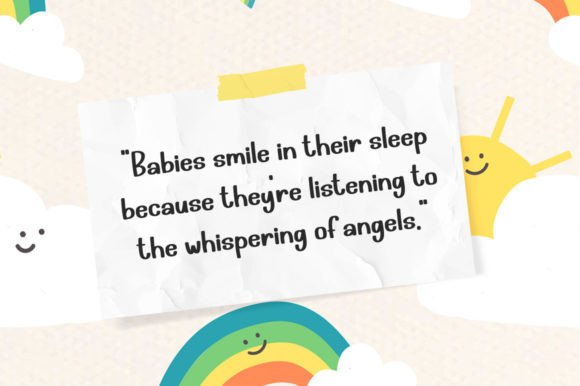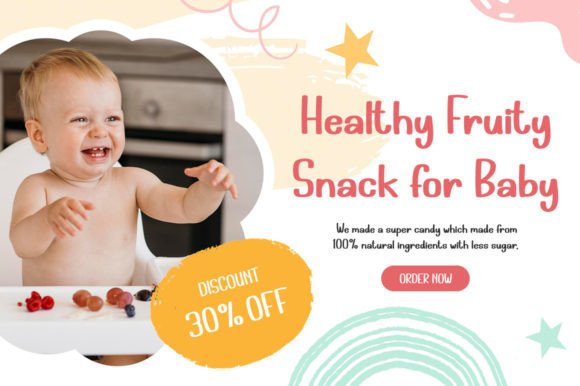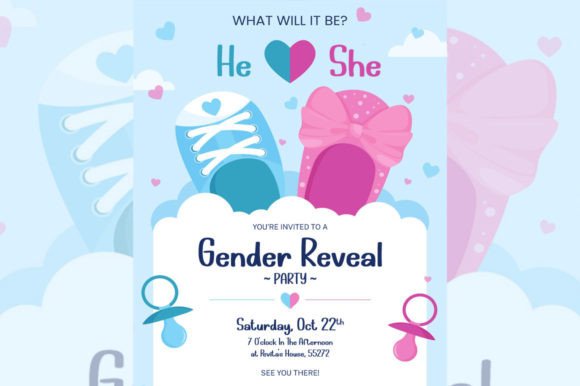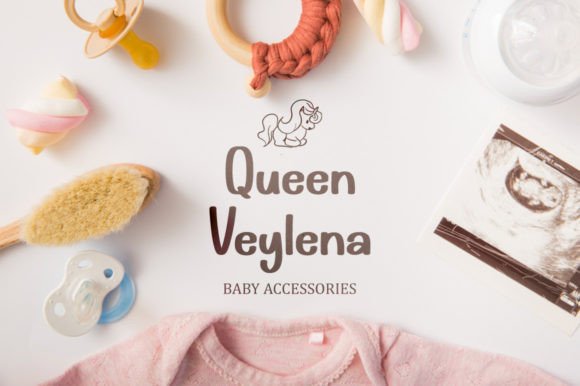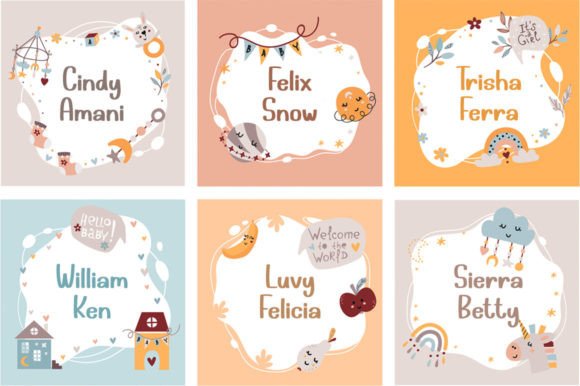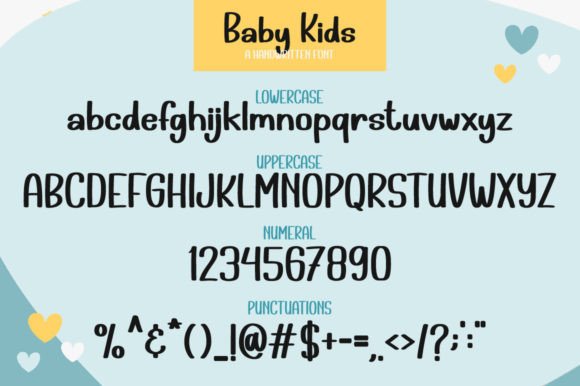
The Perfect Touch: Unveiling Baby Kids Font
Imagine strolling through a quaint little store filled with adorable onesies and plush toys, and you stumble upon the cutest invitation for a baby shower. The font used is playful, whimsical, and instantly grabs your attention. This is exactly what the Baby Kids Font brings to your designs – a dash of fun and playfulness that’s sure to delight your audience.
As a designer, you’re always on the lookout for that special something to make your creations stand out. Baby Kids Font is a display font that’s specifically designed to add a customized touch to your designs, be it invitations, thank you cards, quotes, or logos. Its smart and fun design makes it a valuable addition to any designer’s toolkit.
- Font Family: Baby Kids Font is a unique, hand-drawn font designed specifically for children’s products and educational materials.
- Language Support: Supports multiple languages, including Latin, Cyrillic, and Greek alphabets, making it a versatile font for global applications.
- Unique Characteristics: Features a playful, child-friendly design with rounded edges, making it perfect for children’s books, educational materials, and product branding.
Designer Review: Baby Kids Font
Overall, I have mixed feelings about the Baby Kids Font. On one hand, it has some lovely qualities that make it suitable for specific projects, but on the other hand, it has some significant limitations that need to be considered.
- ✨ Whimsical feel: The font has a playful, childlike quality that’s perfect for designs targeting young audiences, such as children’s books, nursery decor, or kids’ educational materials.
- ✨ Friendly and approachable: The rounded shapes and soft lines of the font create a welcoming atmosphere that’s great for designs aiming to connect with families or parents.
- ⚠️ Limited legibility: The font’s unique design, while visually appealing, can make it challenging to read, especially at smaller sizes or in complex layouts.
- ⚠️ Limited font sizes: The font’s charm is somewhat lost when scaled up or down, which may limit its versatility in different design applications.
- ⚠️ Limited character set: The font may not include all the characters or language support needed for more extensive projects, such as international publications or websites.
In conclusion, the Baby Kids Font is a lovely choice for specific projects that require a playful, childlike feel. However, its limitations mean it’s not a one-size-fits-all solution for more complex or demanding design tasks.
Getting the Most Out of Baby Kids Font
For best results, use Baby Kids Font for designs that require a playful, whimsical feel. This font is particularly suitable for children’s products, nursery decor, and educational materials.
Some common use cases for Baby Kids Font include:
- Children’s product labels
- Nursery decor signs
- Education materials
- Social media posts
- Custom graphics
Alternatives to “Baby Kids Font” for Designers
Great Vibes Font is a modern, elegant script font that works well for titles, headings, and short paragraphs. It’s ideal for creating a friendly and approachable atmosphere in designs, particularly in branding, advertising, and editorial content.
Compared to Baby Kids Font, Great Vibes Font is more sophisticated and versatile, making it suitable for a wider range of design applications.
2. Lobster Font
Lobster Font is a fun, cursive font that’s perfect for adding a touch of whimsy and playfulness to designs. It’s commonly used in titles, headings, and short paragraphs where a casual, informal tone is desired.
Lobster Font is more casual and informal compared to Baby Kids Font, making it suitable for designs that require a lighthearted and approachable feel.
Pacifico Font is a beautiful, elegant script font that works well for titles, headings, and short paragraphs. It’s ideal for creating a sophisticated and refined atmosphere in designs, particularly in branding, advertising, and editorial content.